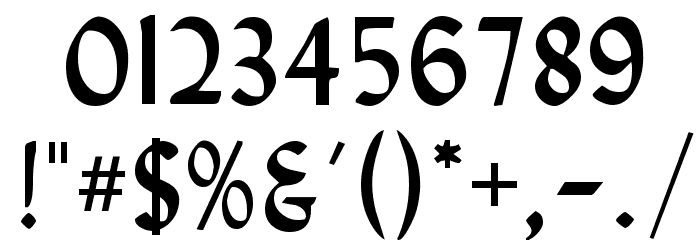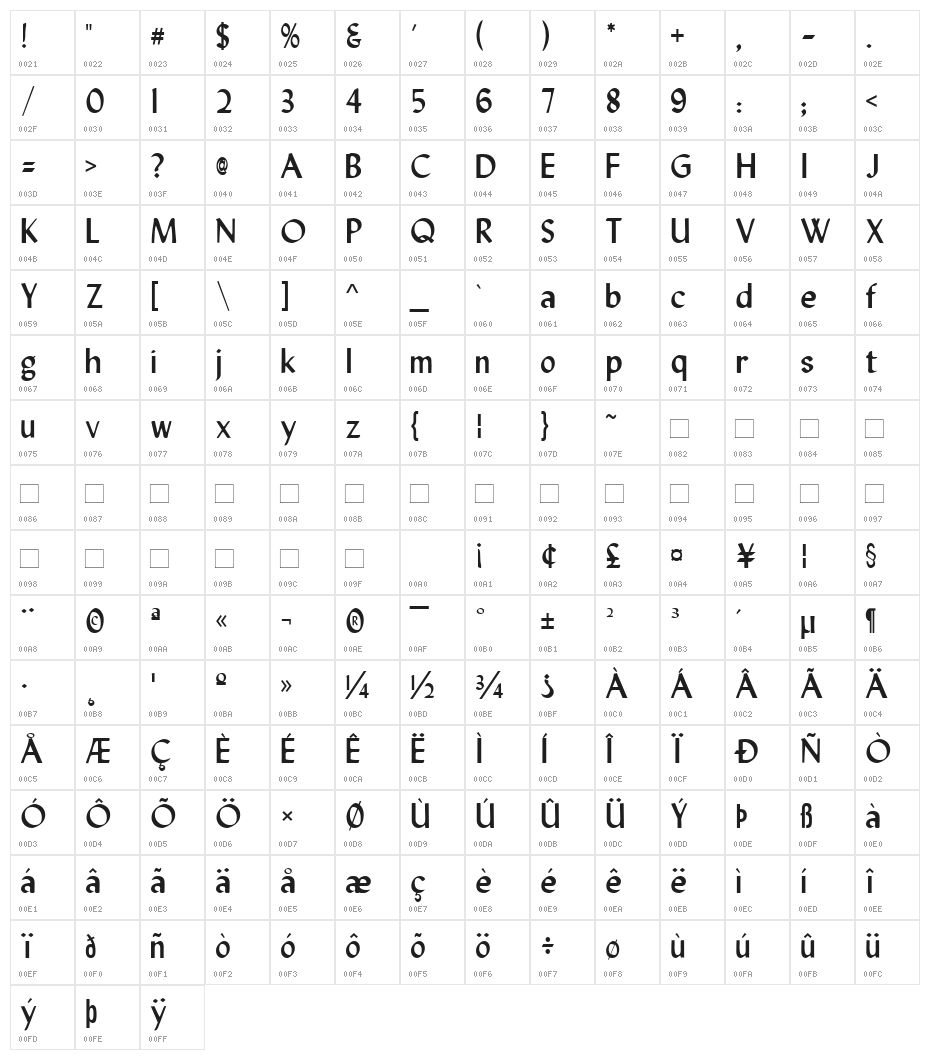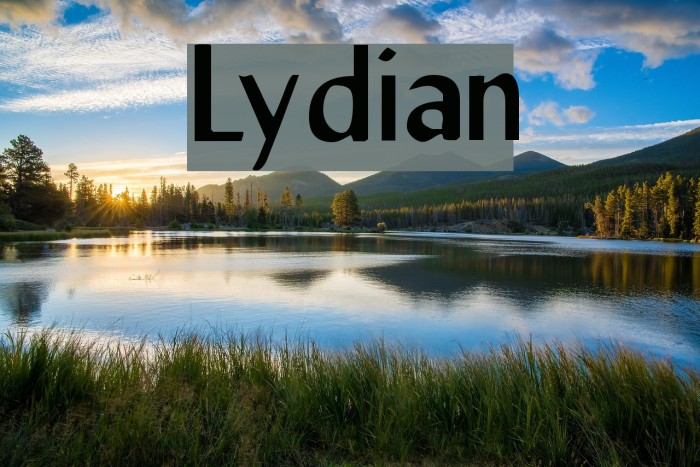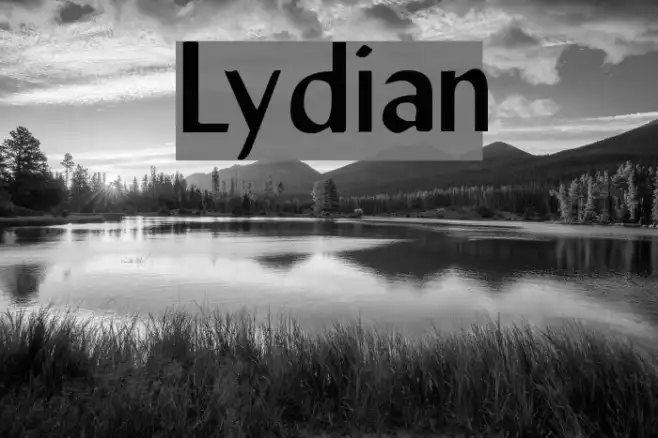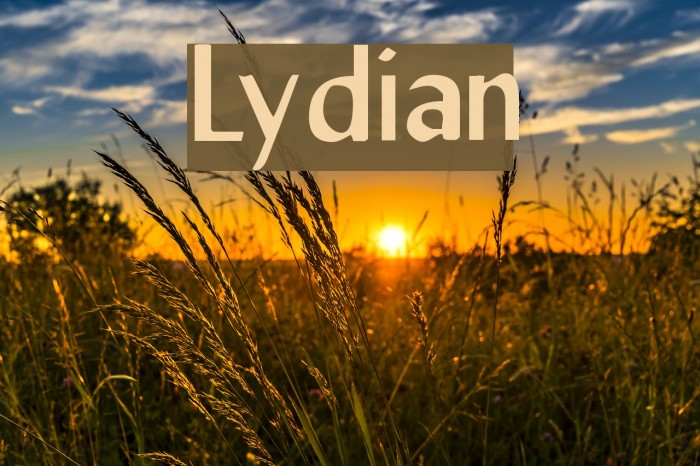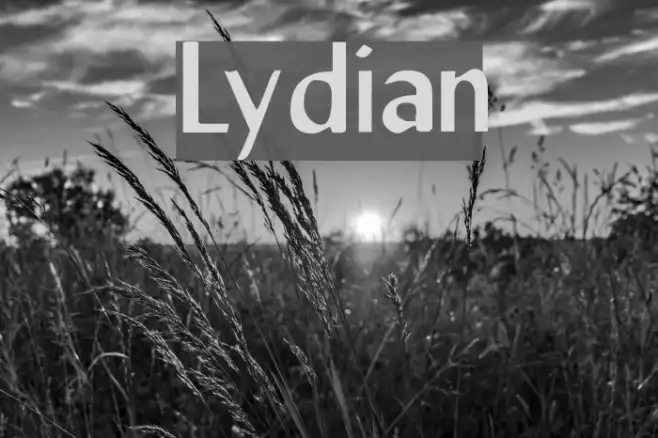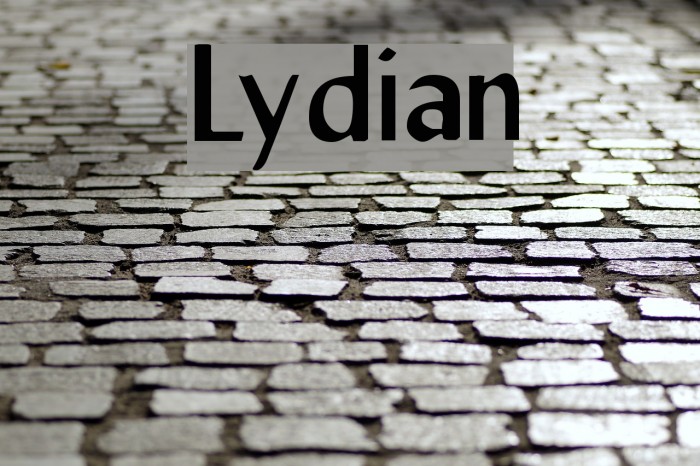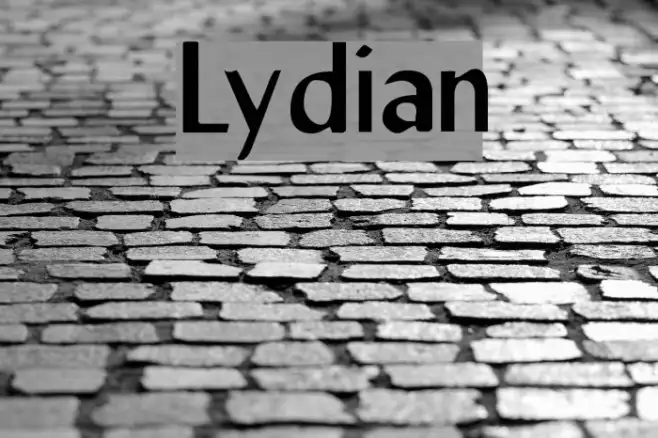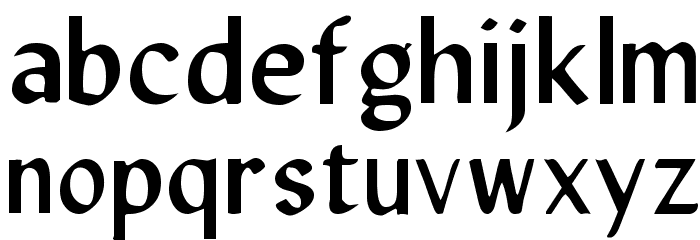
Lydian Font
Lydian Description
This font exhibits a clean and elegant design with a distinct flair. The uppercase letters are bold and slightly condensed, giving them a strong presence. The lowercase letters maintain a consistent style, with smooth curves and a balanced weight. The numerals are clear and easy to read, matching the overall aesthetic of the font. Special characters are well-integrated, maintaining the font's cohesive look. The font's style is versatile, suitable for both formal and creative applications, offering a modern yet timeless appeal.
| Proposed Projects | Ideal for branding, editorial design, advertising, and web design projects. |